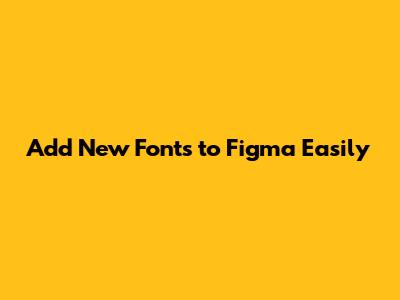
Hey guys! Ever found yourself deep in a Figma project, itching to spice things up with some fresh typography, only to realize you're stuck with the same old fonts? It's a common pain point, right? Well, buckle up, because adding new fonts to Figma is way simpler than you might think. We're talking about taking your designs from 'meh' to 'wowza' with just a few clicks. Whether you're a seasoned pro or just starting out, getting your hands on custom fonts can really elevate your work, giving it that unique flair that makes it stand out. Think of your fonts as the voice of your brand – you wouldn't want it to sound boring, would you? So, let's dive into the nitty-gritty of how to get those gorgeous new typefaces into your Figma workspace, making your design process smoother and your final products way more engaging.
Understanding Font Management in Figma
Before we jump into the how-to, let's quickly chat about how Figma handles fonts. It's pretty neat, guys. Figma actually uses your operating system's font library by default. This means that any font you've installed on your Windows or Mac computer is usually available right there in Figma. Pretty cool, huh? However, there's a catch. If you're collaborating with others or moving your project to a different machine, relying solely on system fonts can cause issues. That's where adding new fonts to Figma becomes crucial, and there are a couple of awesome ways to tackle this. You've got your standard system fonts, which are great for everyday use, but for that extra special touch, you'll want to explore custom fonts. This is especially important if you're working with client branding or trying to nail a very specific aesthetic. The beauty of Figma is its flexibility, and font management is a big part of that. We'll cover installing fonts on your computer so Figma can access them, and also explore Figma's built-in font helper for a seamless experience. Getting this right ensures your designs look exactly how you intend them to, no matter who's viewing them or where.
Installing Fonts on Your Operating System
Alright, the most fundamental way to get new fonts into Figma is by installing them directly onto your computer. This is like teaching your computer a new language – once it knows the font, Figma can understand it too. For Windows users, it's super straightforward. Download your font file (usually a .ttf, .otf, or .woff file), right-click on it, and select 'Install'. Boom! It's done. Mac users, you've got the equally simple 'Font Book' app. Open your font file, and Font Book will pop up, giving you the option to 'Install Font'. It's that easy, folks! Once installed, you just need to restart Figma (or sometimes even just refresh your file) for the new font to appear in the dropdown menu. Think of it as giving Figma a little nudge to say, 'Hey, check out this awesome new font I just got!'. This method is fantastic because it makes the font available not just in Figma, but in all your other design applications too. So, if you're bouncing between Photoshop, Illustrator, and Figma, you'll have a consistent set of tools at your disposal. It’s all about building a robust toolkit for your creative endeavors, and having a diverse font library is a massive part of that. Make sure you download fonts from reputable sources to avoid any pesky malware, guys. The web is full of amazing free and paid font options, so have fun exploring!
Using the Figma Font Helper
Now, for the real magic trick, especially if you're dealing with web fonts or want an even smoother experience, let's talk about the Figma Font Helper. This little gem bridges the gap between your browser-based Figma and the fonts installed on your system, or even local font files you haven't officially 'installed' yet. When you first try to use a local font in Figma (especially if you're using the web version), you might get a little prompt asking you to download the 'Font Helper'. Do it! This app runs quietly in the background, acting as a secure intermediary. It lets Figma access your locally installed fonts and allows you to use font files directly from your computer without needing a full system installation. So, you can grab a font file, drop it into a folder, and the Font Helper can often pick it up. This is a game-changer for rapid prototyping and testing different font pairings. It ensures that even if you haven't gone through the formal installation process on your OS, Figma can still see and use those new fonts. It’s designed with security in mind, so you can trust it to manage access to your fonts safely. This makes collaboration a breeze too, as it helps ensure everyone on your team can see the intended typography, reducing those frustrating 'font mismatch' moments.
Finding and Downloading Fonts
Before you can add new fonts to Figma, you've got to find them, right? The internet is a treasure trove of typography, and thankfully, there are tons of great places to score some killer fonts. For free options, Google Fonts is an absolute goldmine. Seriously, guys, the selection is massive, and they're all licensed for commercial use, which is a huge plus. Another fantastic resource for free fonts is Font Squirrel. They curate high-quality free fonts, often with commercial licenses. If you're looking to splurge a little or need something truly unique, check out MyFonts or Creative Market. These platforms have thousands of premium fonts designed by incredible typographers. When downloading, pay attention to the file types. You'll usually see .otf (OpenType Font) and .ttf (TrueType Font) – both work great with Figma. Sometimes you'll find .woff or .woff2 files, which are primarily for web use but can often be installed too. Always check the license, especially for commercial projects. You don't want any nasty surprises down the line. Finding the right font is like finding the perfect outfit for your design – it sets the tone and makes a huge impact. So, take your time, explore, and have fun building your ultimate font library!
Google Fonts: A Free Typography Paradise
Let's talk about Google Fonts, guys, because honestly, it's one of the best resources out there for adding new fonts to Figma without spending a dime. We're talking about thousands of high-quality, open-source fonts that you can download and use freely. The best part? They're all designed to work beautifully on the web and in print, and they come with straightforward licenses that generally allow for commercial use. Navigating Google Fonts is super intuitive. You can filter by font type (serif, sans-serif, display, handwriting, monospace), thickness, slant, and even the number of styles available within a family. Found a font you love? Just click 'Download family', and you'll get a neat little zip file containing all the styles. Then, it's just a matter of installing that font onto your system as we discussed earlier, and voilà – it'll be waiting for you in Figma. It’s an incredible way to instantly boost your design options and ensure your projects look polished and professional. Don't underestimate the power of a well-chosen font; it can completely change the mood and readability of your text. Google Fonts makes experimenting with different typographic styles accessible to everyone.
Premium Font Marketplaces
While free fonts are awesome, sometimes your project just demands something extra. That's where premium font marketplaces come in, offering a world of unique and professional new fonts for Figma. Sites like MyFonts, Fontspring, and Creative Market are packed with incredible typefaces crafted by talented designers. You can find everything from elegant serifs and bold display fonts to quirky handwritten styles. The quality is generally top-notch, and you're often supporting independent artists directly. When you purchase a font, you'll receive a license – read it carefully, guys! It'll outline how you can use the font (e.g., desktop use, web use, app embedding). Typically, you'll download a file (again, usually .otf or .ttf) that you can then install on your system. This ensures that Figma recognizes it. Investing in a high-quality premium font can truly set your designs apart and add a layer of sophistication that's hard to achieve with free options alone. It's like choosing a signature piece of jewelry for your outfit; it completes the look and adds that memorable touch. So, if you're looking to elevate your brand or project, exploring these premium sites is definitely worth the investment.
Adding Fonts Directly Within Figma
Okay, so we've talked about installing fonts on your system. But can you actually add new fonts to Figma without leaving the app? Pretty much, yes! While Figma primarily pulls from your system's font library, its Font Helper plays a crucial role here. If you've installed the Font Helper (and you totally should, guys!), Figma gets really good at finding and using local fonts. When you open a Figma file that uses fonts you don't have installed locally, it'll often prompt you. If you click the button to enable access to local fonts, and you have the Font Helper installed, it should bridge that gap. Crucially, Figma itself doesn't host fonts. It relies on either your OS installation or the Font Helper to access them. Think of the Font Helper as your personal font concierge within Figma. It ensures that even if you haven't manually clicked 'Install' on every single font file, Figma can still securely access and display them. This is especially handy if you're working with a lot of font files for different projects and don't want to clutter your main system library. The process is designed to be secure and seamless, allowing you to focus on designing rather than wrestling with font files. It's all about making your workflow as smooth as possible, and Figma's approach to font management is a big part of that.
The Font Installer Panel
Let's dive a bit deeper into how Figma makes adding new fonts feel almost effortless, especially when you're using the Figma Font Helper. When you encounter a file with fonts you don't have, or you simply want to add more, Figma will often show a notification. This notification usually has a button, like 'Manage local fonts' or similar. Clicking this can open up a panel or directly interact with your system's font installer or the Figma Font Helper. The key thing to remember is that Figma doesn't have its own built-in 'font library' in the cloud that you browse and click 'add' to. Instead, it's about making sure Figma can see and use the fonts that are available to your computer. The Font Helper app, which runs in the background, is the primary mechanism for this seamless integration. It allows Figma to access font files you might have downloaded but haven't formally installed through Windows' 'Install' option or Mac's Font Book. So, when you see prompts within Figma related to fonts, think of them as gateways to ensure your design tool has access to your typographic arsenal. It’s a clever system designed for security and convenience, ensuring your designs are always rendered with the fonts you intend.
Ensuring Font Availability for Collaboration
This is a big one, guys, especially if you're working in a team. You've painstakingly chosen the perfect new fonts for Figma, but how do you make sure your collaborators see the exact same thing? The answer lies in consistency and proper management. If you're only using system-installed fonts, everyone on the team needs to have those same fonts installed on their respective computers. This can be a hassle to track. A more robust solution is using Figma's cloud font features or ensuring everyone installs the Figma Font Helper. When you use Google Fonts or other widely available font families, it simplifies things. However, for custom or premium fonts, clear communication and a shared installation process are key. Some teams use shared cloud storage (like Google Drive or Dropbox) to distribute font files along with project assets, accompanied by instructions for installation. The Figma Font Helper really shines here, as it helps bridge the gap for different operating systems and ensures smoother access. Always double-check with your collaborators to confirm they have the necessary fonts loaded, or the Font Helper running, to avoid any last-minute typographic crises. Consistent font availability is the bedrock of smooth team collaboration in Figma.